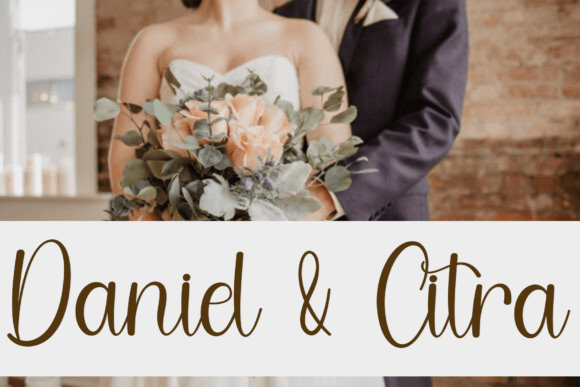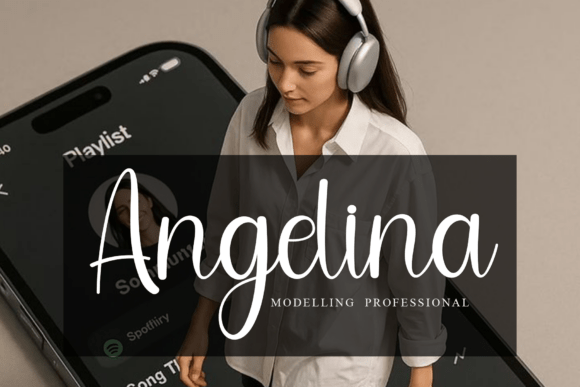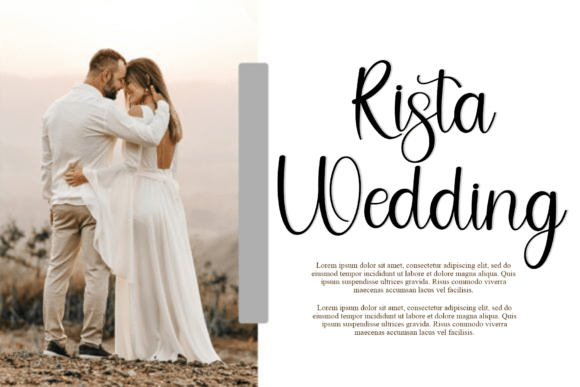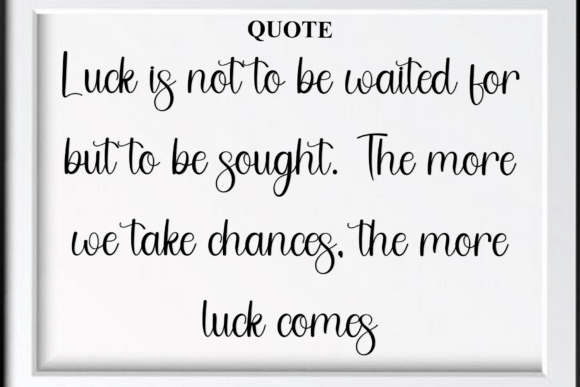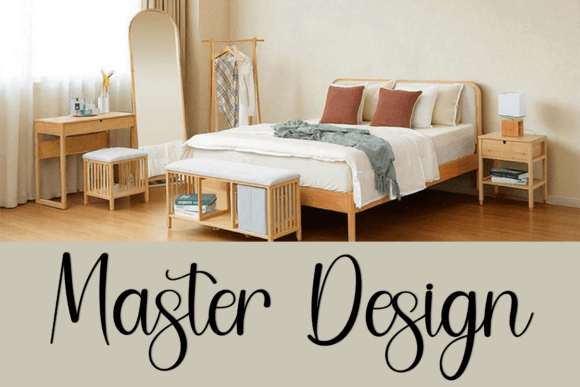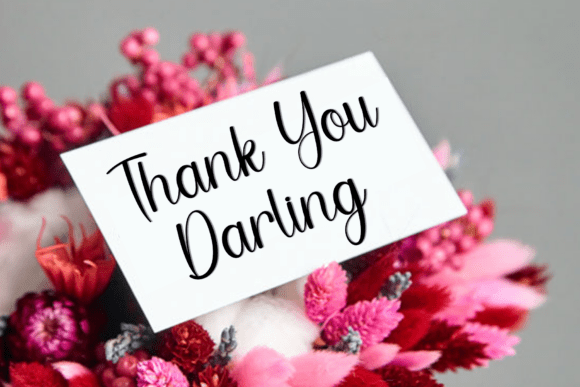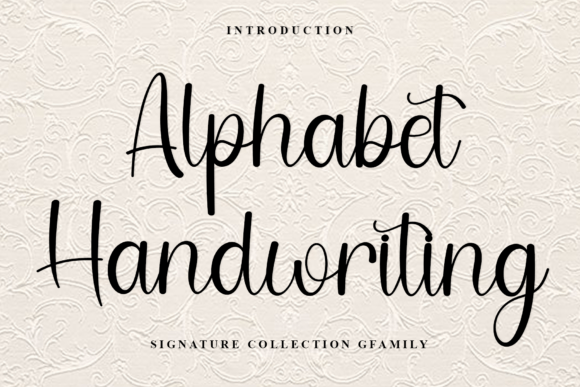
Introducing the Alphabet Handwriting Font: A Breath of Fresh Air for Designers
Are you tired of using the same old fonts in your designs? Do you want to add a touch of elegance and sophistication to your work? Look no further than the Alphabet Handwriting font. This beautiful typeface is a breath of fresh air for designers seeking a truly authentic, “pen-to-paper” aesthetic.
What Makes the Alphabet Handwriting Font So Special?
The Alphabet Handwriting font captures the delicate nuances of natural cursive, featuring elegant loops and a light, airy stroke that feels both personal and professionally polished. It’s the perfect choice for designers who want to add a touch of whimsy and romance to their work. Whether you’re designing a wedding invitation, a greeting card, or a boutique lifestyle brand, this font is sure to impress.
Part of the Exclusive Signature Collection
The Alphabet Handwriting font is part of the exclusive Signature Collection, a curated selection of high-end fonts designed to help you create stunning, professional-grade designs. With its elegant flow and high legibility, this font is perfect for long-form quotes, sophisticated signature logos, and more.
Perfect for High-End Designs
The Alphabet Handwriting font is ideal for high-end wedding invitations, romantic greeting cards, and boutique lifestyle branding that requires an intimate, human touch. Its graceful flow and delicate nuances make it perfect for designs that need to convey a sense of elegance and sophistication.
Pairing Suggestions
To get the most out of the Alphabet Handwriting font, try pairing it with soft, textured paper backgrounds and minimalist serif fonts. This will create a balanced, high-fashion look that’s perfect for designers who want to create a sense of luxury and refinement.
The Alphabet Handwriting font is incredibly versatile, making it perfect for a wide range of design projects. Here are just a few ideas to get you started:
- Romantic greeting cards and gift tags
- Boutique lifestyle branding and packaging
- Long-form quotes and typographic posters
- Sophisticated signature logos and wordmarks
- Birth announcements and baby shower invitations
- Editorial spreads and magazine layouts
Why Choose the Alphabet Handwriting Font?
So why choose the Alphabet Handwriting font over other fonts on the market? Here are just a few reasons:
- Authentic look and feel: The Alphabet Handwriting font captures the delicate nuances of natural cursive, giving your designs a truly authentic look and feel.
- Elegant and sophisticated: This font is perfect for designers who want to add a touch of elegance and sophistication to their work.
- Highly legible: The Alphabet Handwriting font is highly legible, making it perfect for long-form quotes and other designs that require a lot of text.
- Versatile: This font is incredibly versatile, making it perfect for a wide range of design projects.